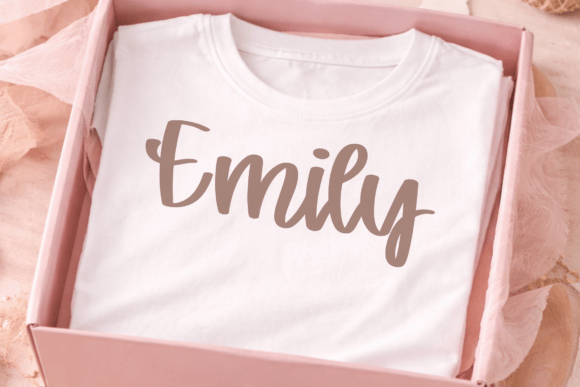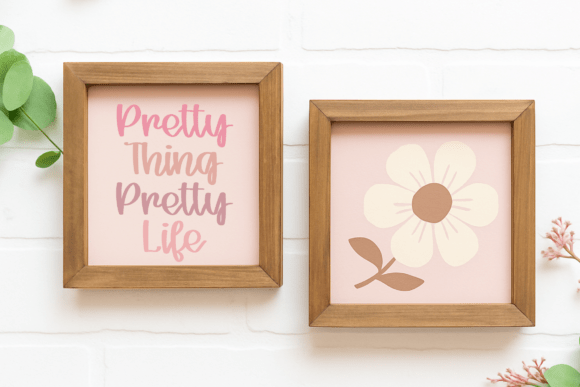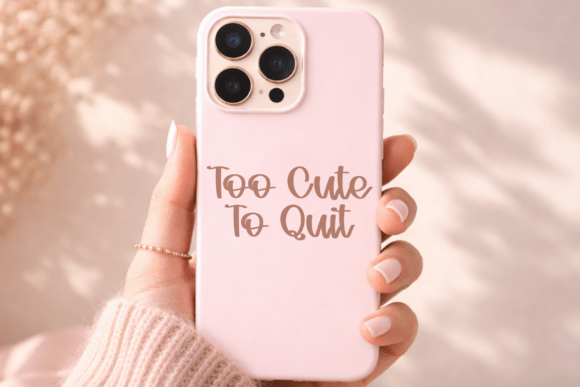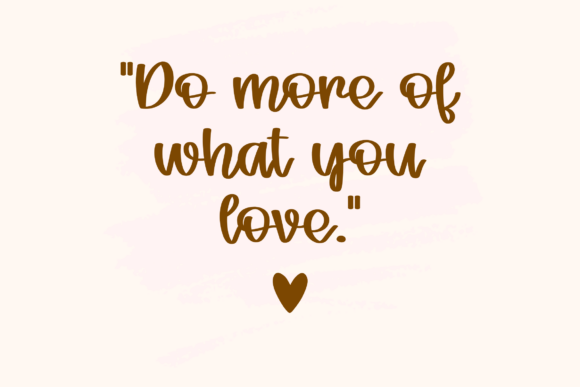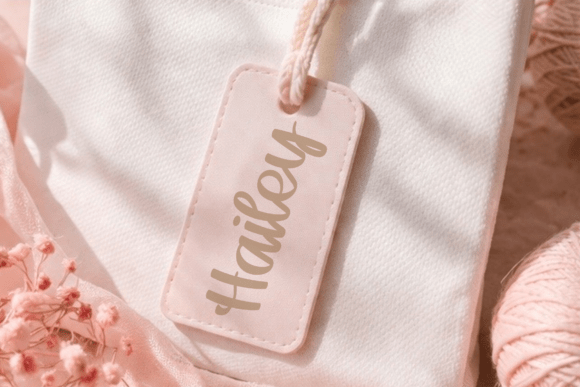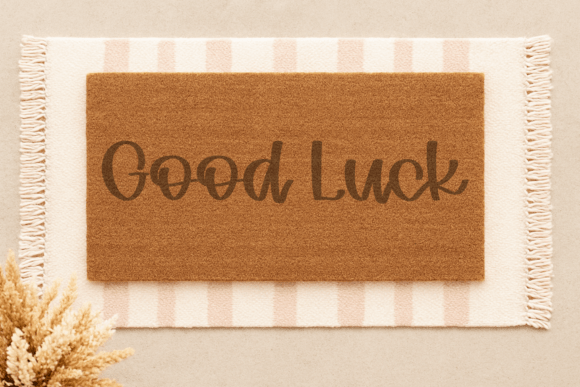
The High Rise Font: Elevating Your Designs with a Soft and Friendly Touch
As a designer, I’ve had my fair share of moments where finding the perfect font felt like searching for a needle in a haystack. I recall working on a project for a client who wanted a warm and approachable feel for their branding. I scoured through countless fonts, but none seemed to capture the essence of what I was looking for – until I stumbled upon High Rise. This soft and friendly handwritten script font has been a game-changer for me, and I’m excited to share its wonders with you! 😊
An Honest Review: What I Love and What to Consider
• ✅ Smooth curves and relaxed letterforms for a natural handwritten look
• ✅ Clean and consistent strokes for smooth performance in writing and cutting
• ✅ Highly versatile and works beautifully across various applications, from Cricut cutting projects to digital planners and social media content
• ✅ Easy to read and understand, making it perfect for everyday creative use
• ⚠️ May not be suitable for very formal or traditional designs, as it has a distinctly casual feel
• ⚠️ Some users may find the font a tad too soft or rounded for their taste
The Story Behind High Rise: A Designer Inspiration
High Rise was designed with the intention of creating a font that feels approachable and warm. The designer aimed to craft a font that captures the essence of handwritten writing, while maintaining clarity and readability. The result is a font that feels like a friendly conversation – approachable, yet polished.
Q: What makes High Rise suitable for Cricut cutting projects?
A: High Rise’s clean and consistent strokes ensure smooth performance for cutting, making it an excellent choice for Cricut projects.
Q: Is High Rise available in different weights or styles?
A: High Rise is a single font, but its versatility and range of OpenType features make it adaptable to various design needs.
Q: Can I use High Rise for digital and print projects?
A: Absolutely! High Rise works beautifully across both digital and print applications, making it a versatile addition to your font library.